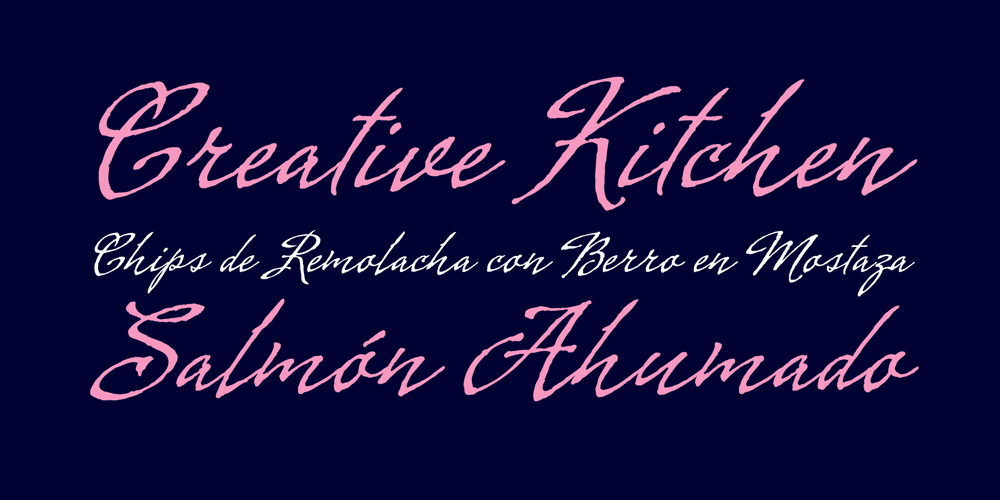
Cenizas Font Family was designed by Alejandro Paul, Angel Koziupa and published by Sudtipos. Cenizas contains 1 styles and family package options. Cenizas is another masterpiece of rough-and-tumble script from the prolific Argentine duo of Koziupa and Paul. Although the overall ‘wildness’ of Cenizas is reminiscent of popular mid-twentieth-century English display scripts, Koziupa’s Latin brush humor and ingenuity remain evident in the underlying structure of the design. Casual, care-free and adventurous, Cenizas can be a great choice for design applications relating to active behavior, like outdoor sports and travel. It also is enough of a rough script to be quite useful in a variety of other design contexts, such as the covers of art books or historical novels, museum literature, music sleeves and posters, or even map designs.